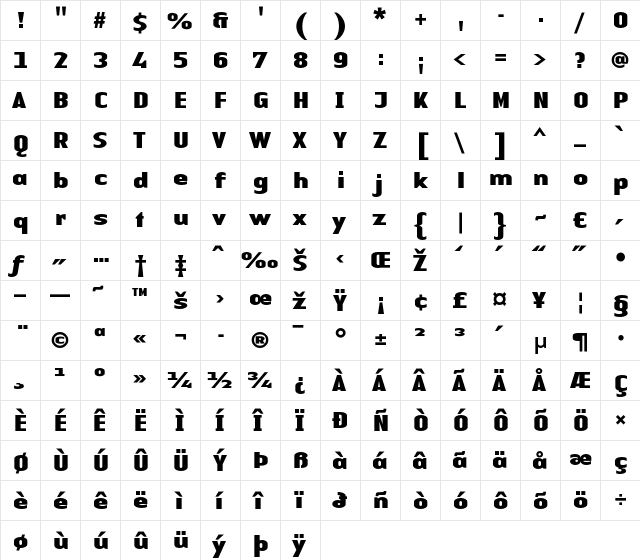
LTAuthenticSans Medium Regular
Design Context for LTAuthenticSans Medium Typeface
LTAuthenticSans Medium is a composed and adaptable typeface that performs quietly and consistently across a wide range of design contexts.